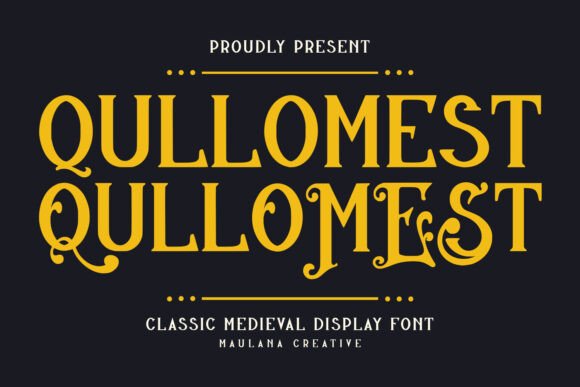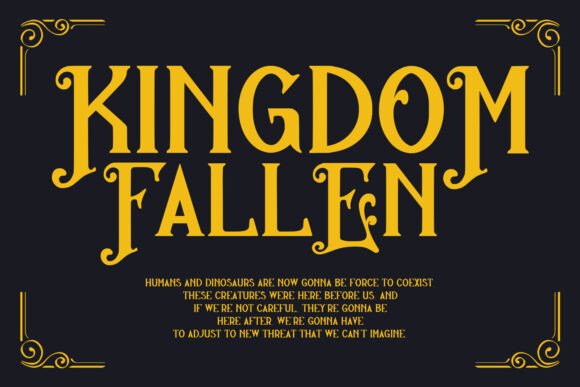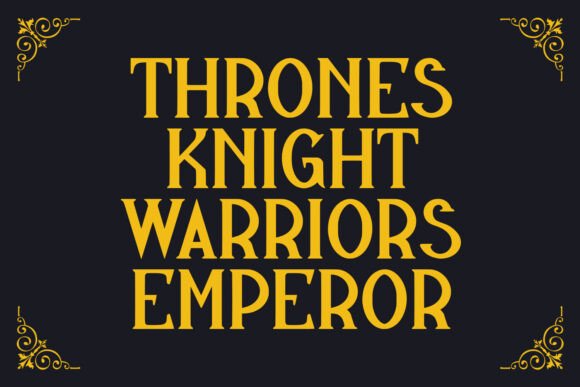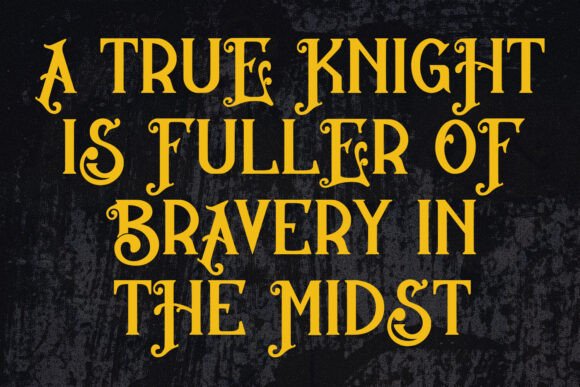
Qullomest Font: Regal Display Font for Vintage Branding & Logo Design
About the Qullomest Font
Make a bold statement with Qullomest Font, a powerful and memorable font. Qullomest is a timeless medieval display font that brings a regal, vintage charm to your designs. With its bold serifs, ornamental swashes, and old-world flair, it’s perfect for fantasy book covers, historical branding, posters, and anything that needs a touch of gothic elegance. Add a noble feel to your projects with this captivating typeface.
Qullomest excels in display applications such as headlines, logos, and short-form text on posters or packaging. Its ornate nature makes it less suitable for body copy or UI elements where readability is paramount. Extended use will hinder legibility.
The font’s regal personality pairs well with clean sans-serif fonts like Helvetica or Open Sans for a balanced contrast. For a more cohesive vintage feel, consider pairing it with a complementary serif such as Garamond or Didot. Avoid pairing it with overly playful or modern script fonts, as this might clash with its inherent classicism.
Qullomest projects an air of sophisticated boldness. It is ideally suited to brands emphasizing heritage, luxury, or a historical context. Think artisan goods, high-end spirits, or projects with a medieval or fantasy theme.
Qullomest Font Usage Examples
Qullomest Font Example